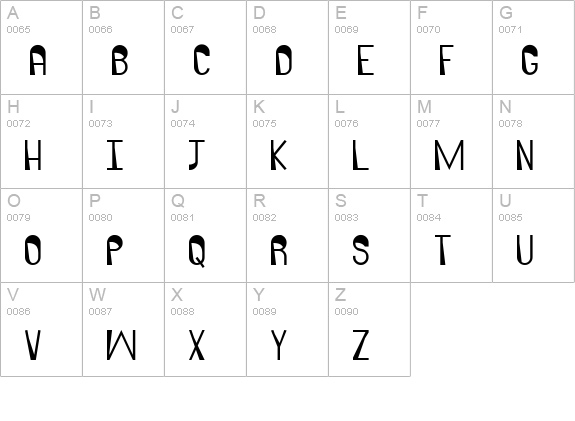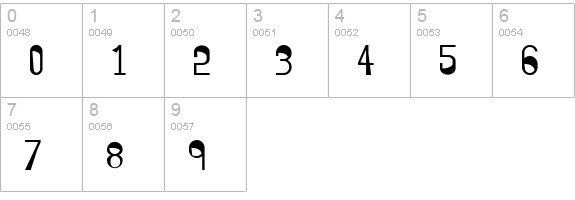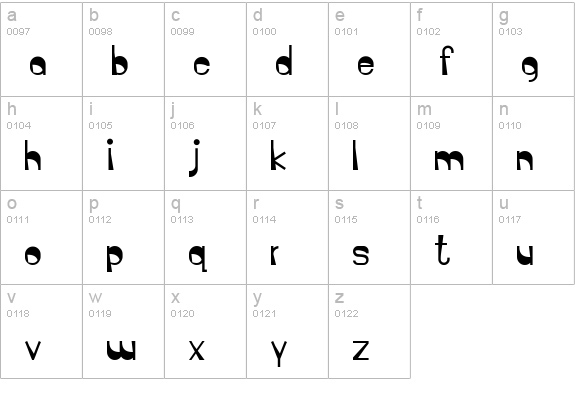
Creek 101 Font Details
Introducing Creek 101, a breathtaking font that seamlessly combines elegance and modernity. With its sleek lines and sophisticated curves, this typeface is sure to captivate and inspire. The versatility of Creek 101 makes it a perfect choice for a wide range of projects, whether it be branding, editorial design, or even wedding invitations. But what truly sets Creek 101 apart is that it is more than just a beautiful font – it's also completely free! That's right, you can download this stunning typeface for no cost at all. Simply head over to FontsMarket.com, where Creek 101 is readily available for you to access and enjoy. Whether you're a designer looking to add a touch of elegance to your creations or a business owner seeking a font that exudes sophistication, Creek 101 has got you covered. Its clean and modern design, coupled with its effortless legibility, ensures that your message will be conveyed with utmost clarity and style. The smooth and flowing letterforms of Creek 101 effortlessly draw the reader's eye, making it a true standout among other fonts. Its versatility allows it to be used in a variety of contexts, from elegant headlines to delicate body text. No matter how you choose to utilize Creek 101, it is guaranteed to elevate your designs and bring a touch of refinement to your projects. So why wait? Embrace the beauty and elegance of Creek 101 today. Download this extraordinary font for free at FontsMarket.com and unlock a world of possibilities for your creative endeavors. Let Creek 101 be your go-to font for adding that extra touch of class and sophistication to your designs.